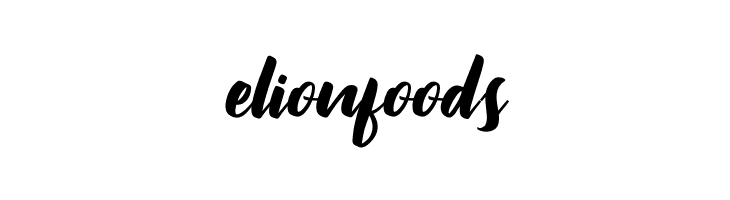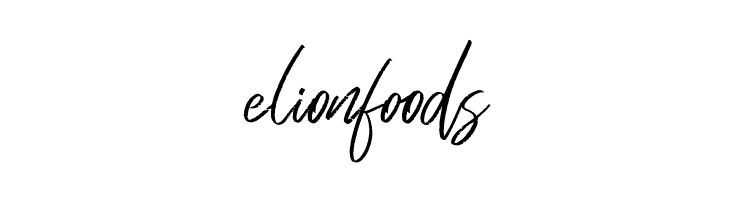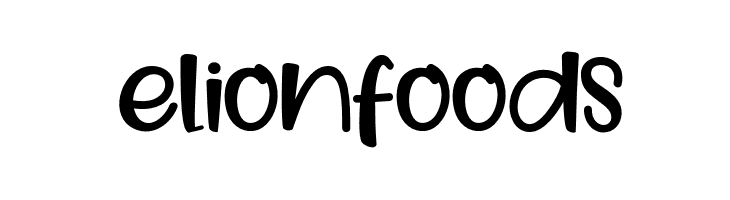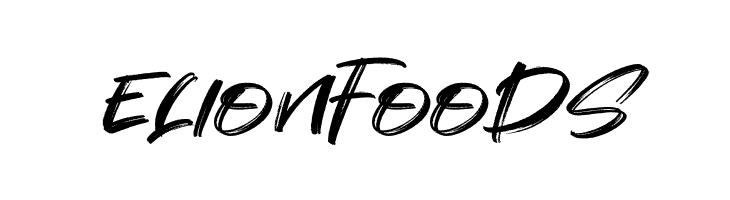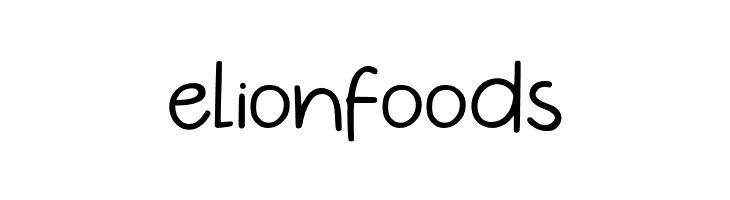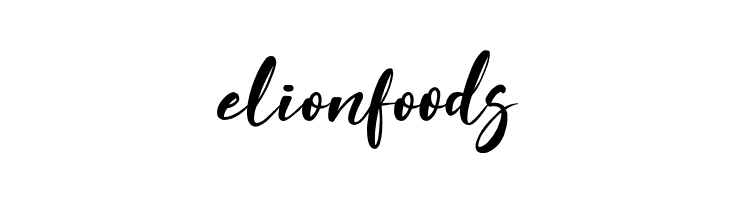
A bold, modern script font with a flowing, cursive style.
A dynamic, brush-style font with expressive strokes and fluid movement.
A bold, playful script font with rounded strokes and smooth curves.
A lively, cursive handwritten font with fluid, interconnected strokes.
A playful, bold handwritten font with rounded characters and a whimsical style.
A bold, brush-style font with dynamic and expressive strokes.
A playful, hand-drawn font with rounded edges and a casual style.
A playful, handwritten font with rounded edges and a casual style.
A bold, brush-style font with dynamic and expressive strokes.
A dynamic and elegant script font with fluid, sweeping letterforms.